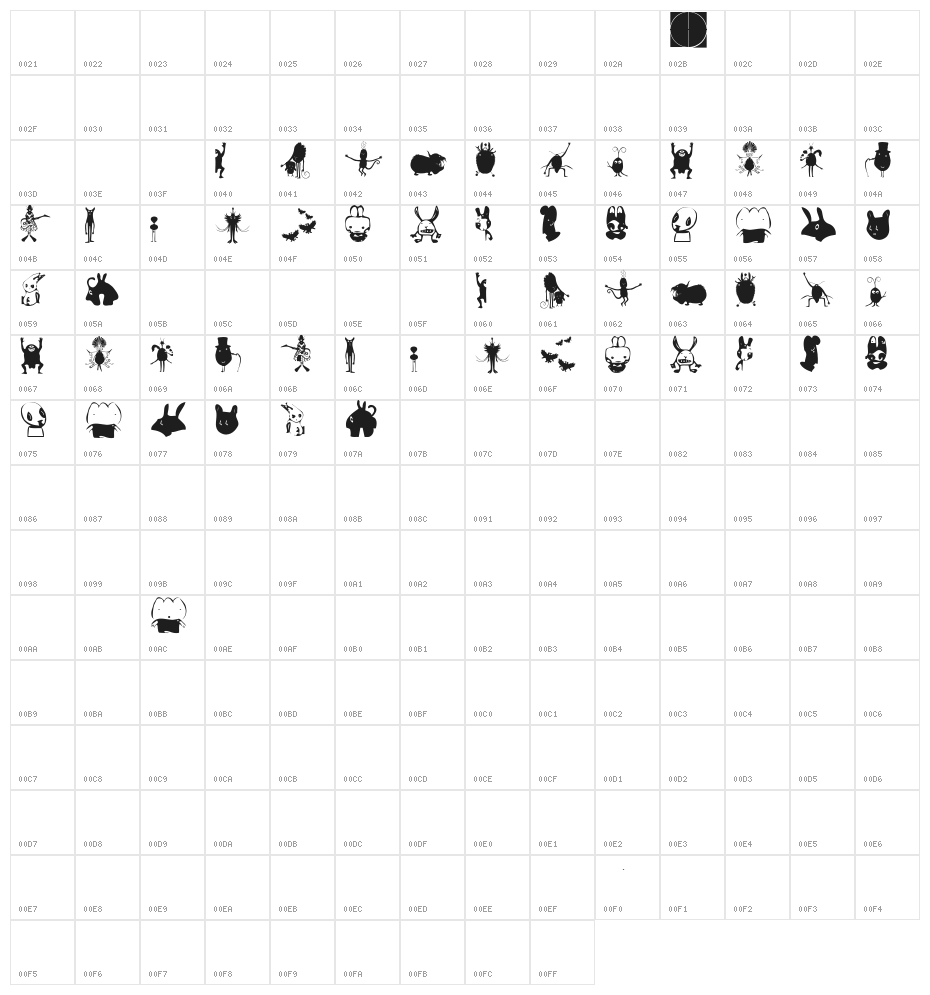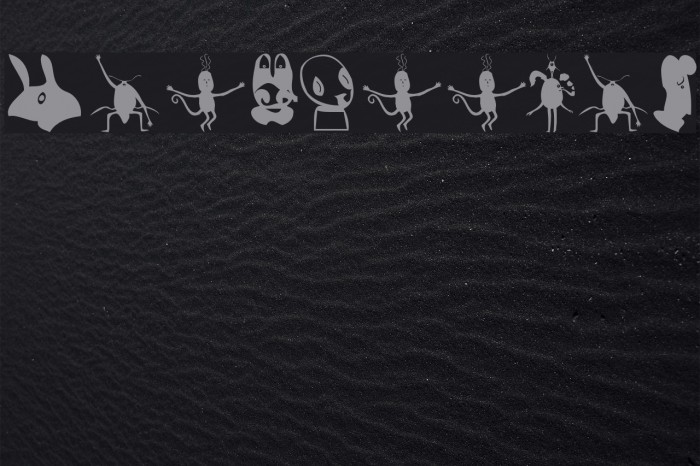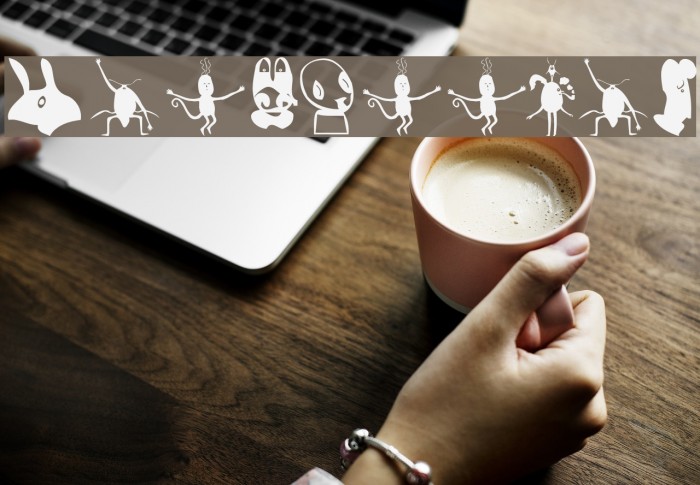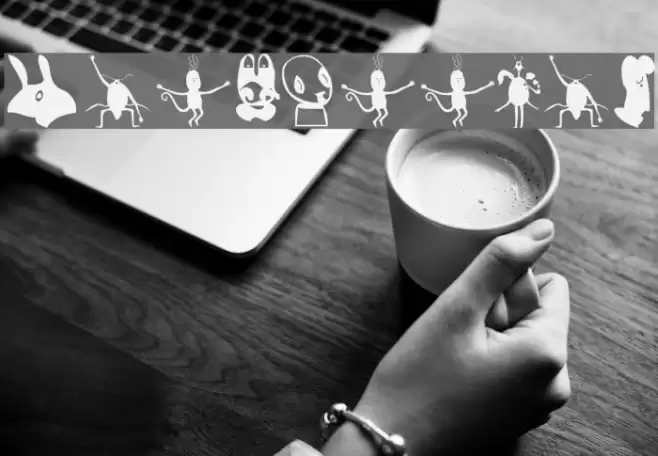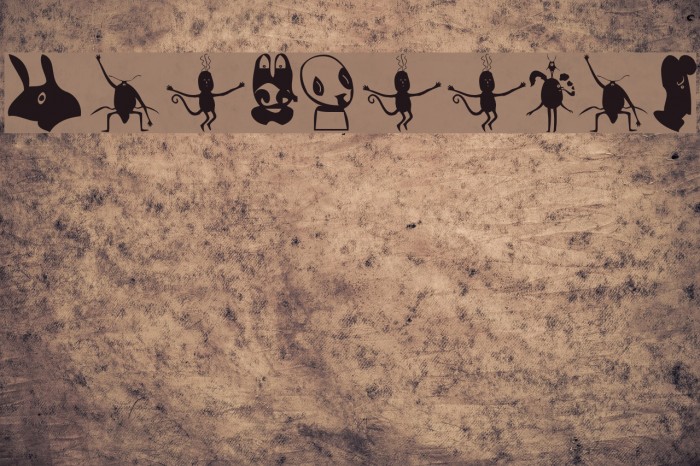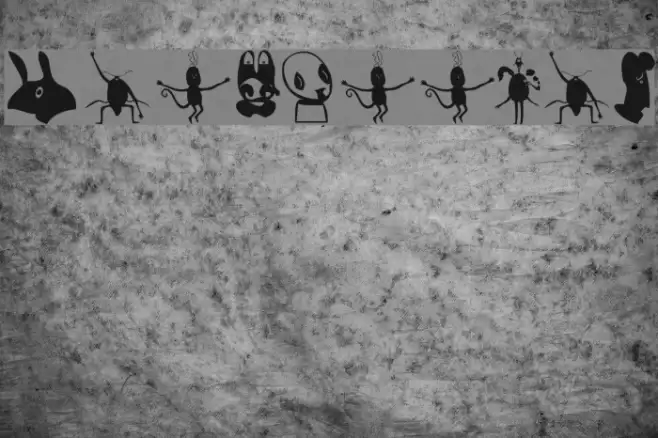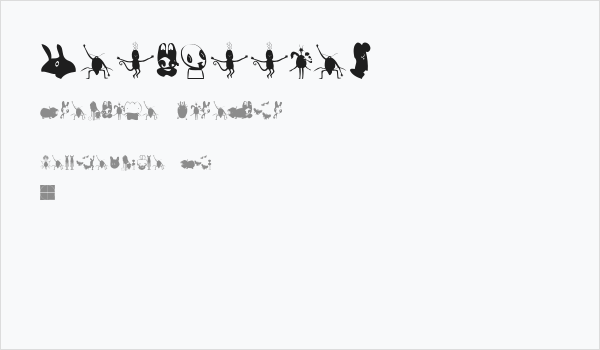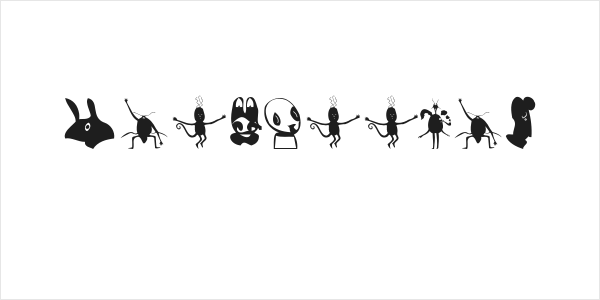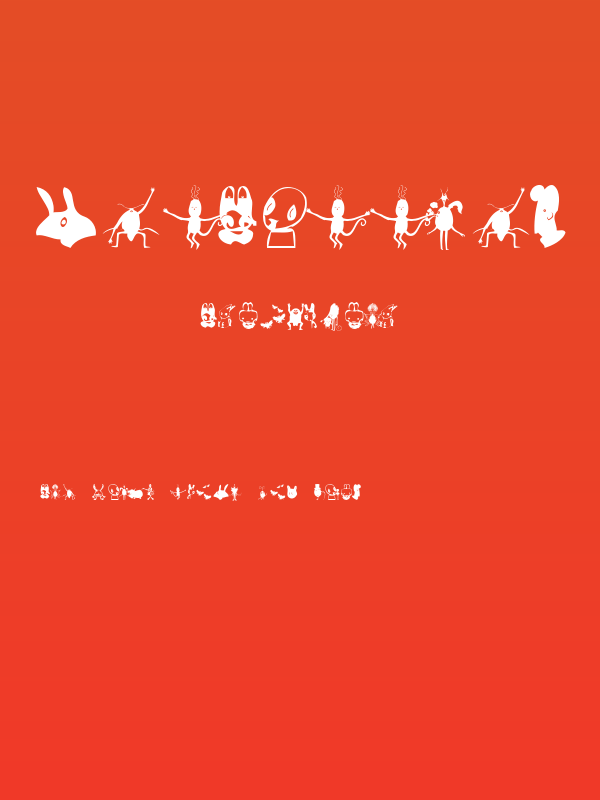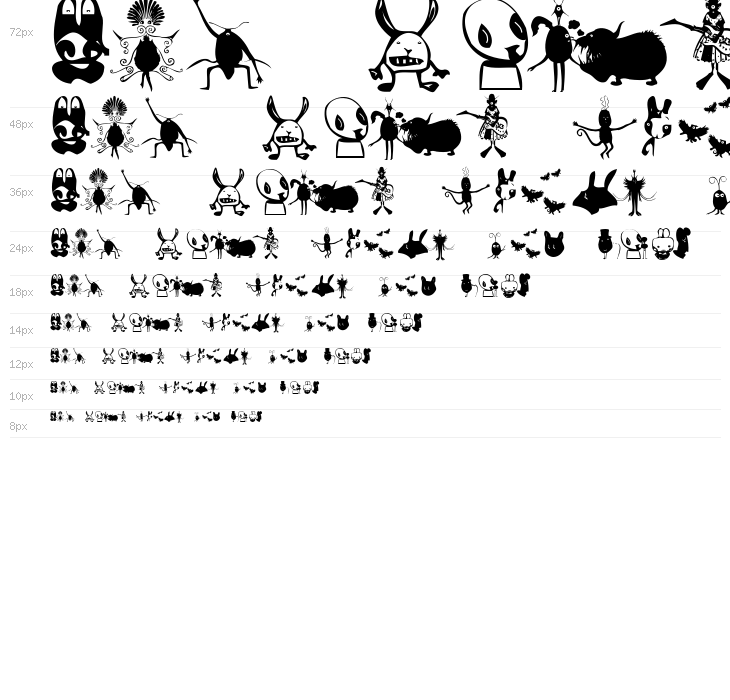
WebTubbies Font
WebTubbies Description
WEBTUBBIES UPPERCASE
WEBTUBBIES LOWERCASE
WEBTUBBIES OTHER CHARS
| Overall Style | Whimsical, Playful, Decorative |
| Use Case | Illustrative elements, Decorative accents, Themed graphics |
| Proposed Projects | ChildrenΓ’β¬β’s books, party invitations, playful branding, educational materials, greeting cards, creative posters. |